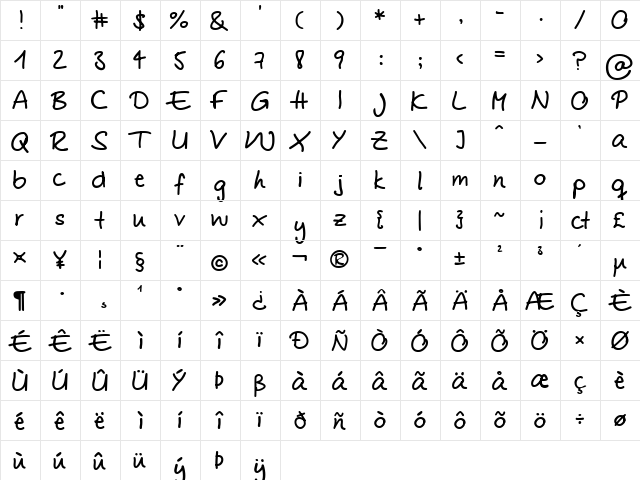
Mareen's Print Regular
Design Context for Mareen's Print Typeface
Mareen's Print is a composed and adaptable typeface that performs quietly and consistently across a wide range of design contexts.